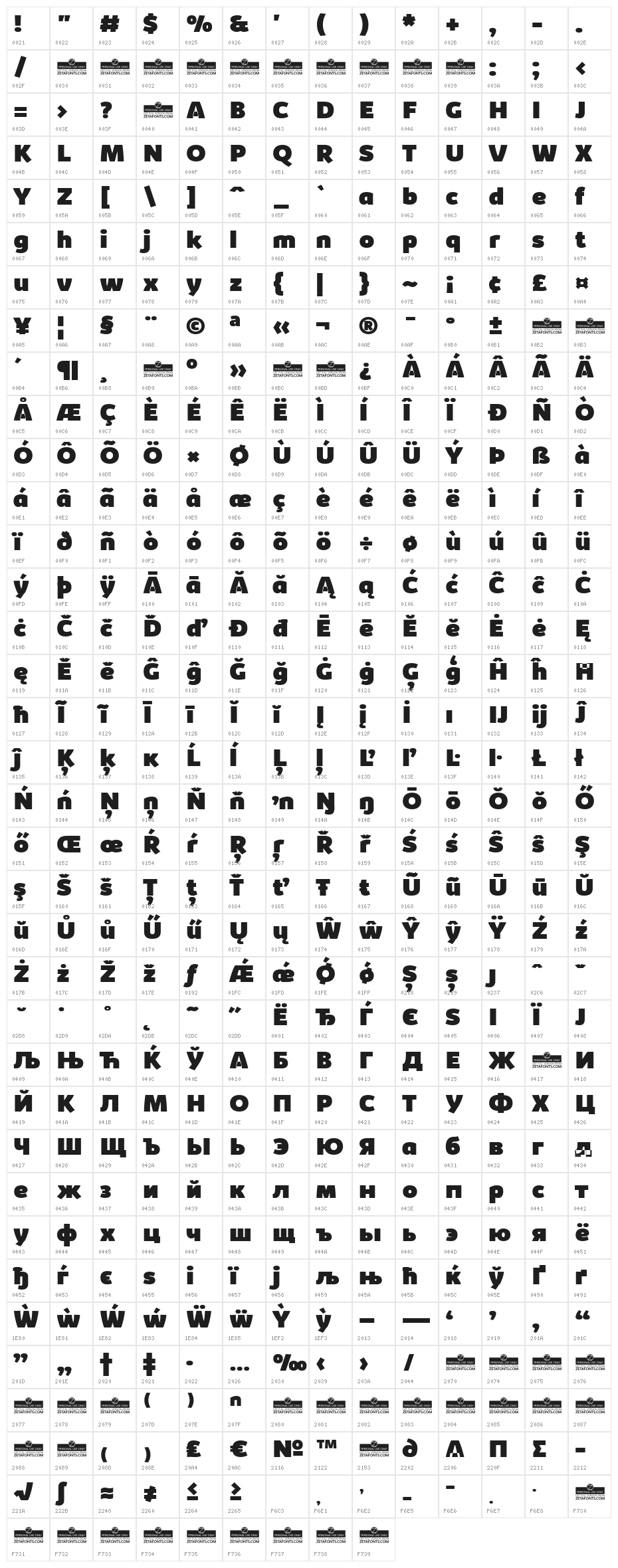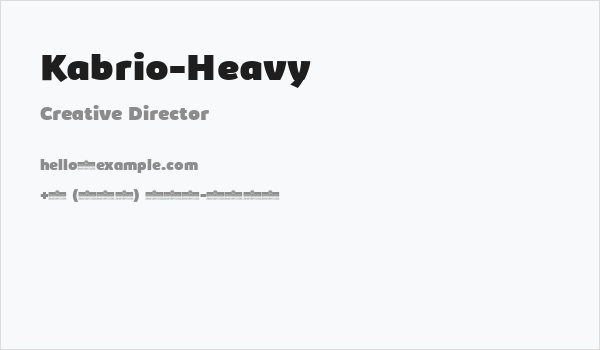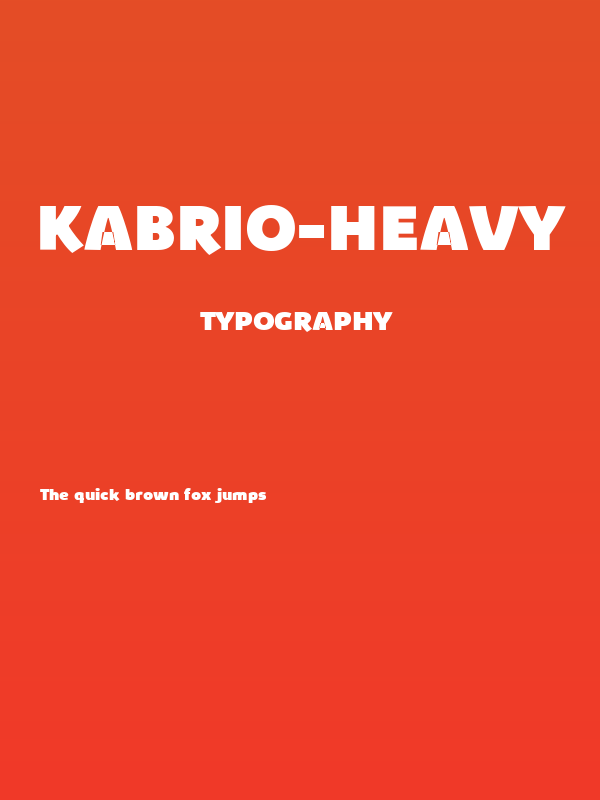
Kabrio-Heavy Font
Kabrio-Heavy Description
This font features a bold and impactful design with thick, uniform strokes that create a strong visual presence. The characters are well-defined and maintain a consistent weight throughout, giving the typeface a cohesive and robust appearance. The uppercase and lowercase letters are designed with a modern aesthetic, featuring smooth curves and clean lines. The numerals and special characters complement the overall style, ensuring versatility across various applications. This font is particularly suited for projects that require a bold statement, such as headlines, posters, and branding materials.
Proposed ProjectsIdeal for headlines, posters, branding, and any design requiring a bold statement.